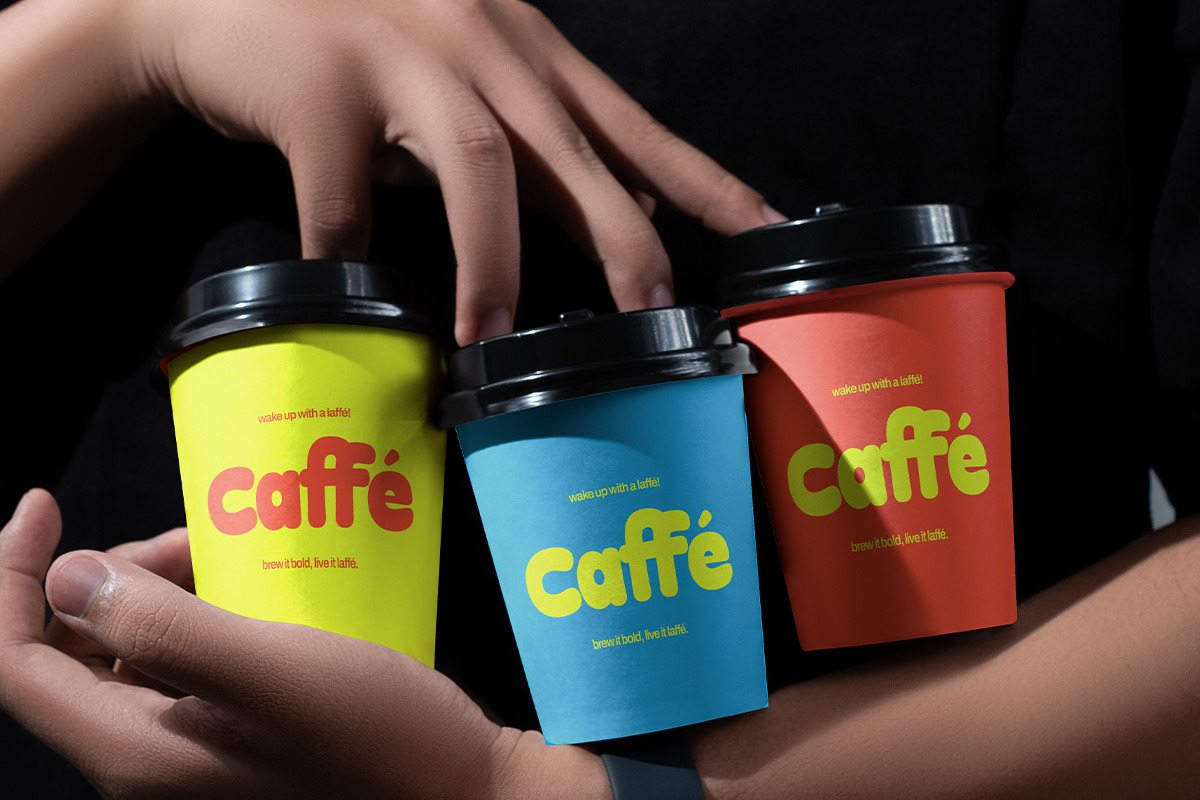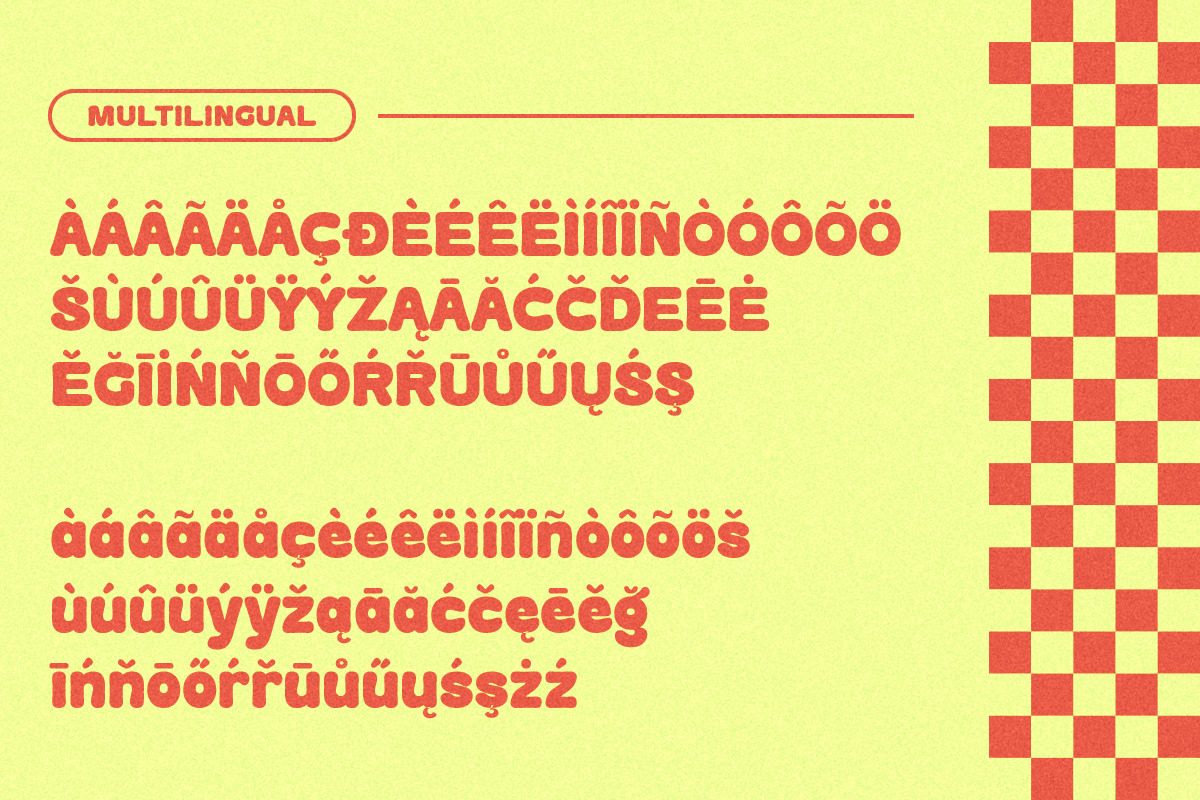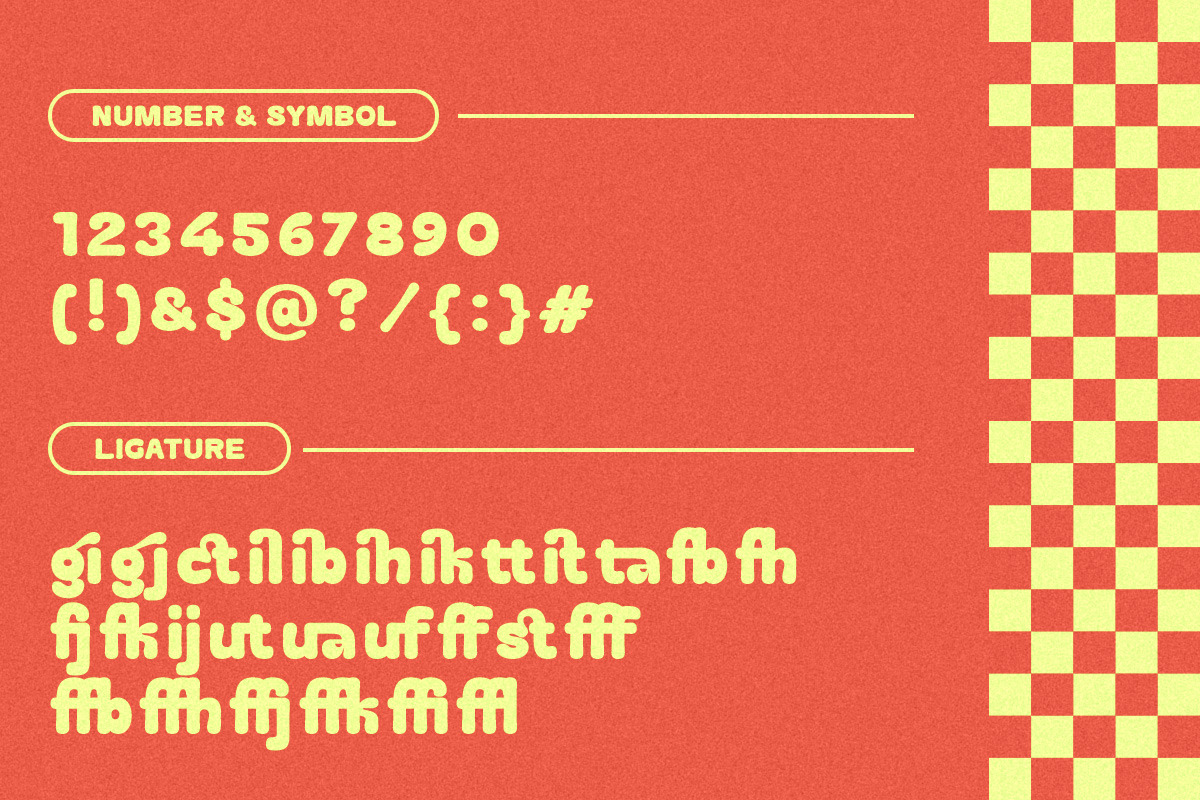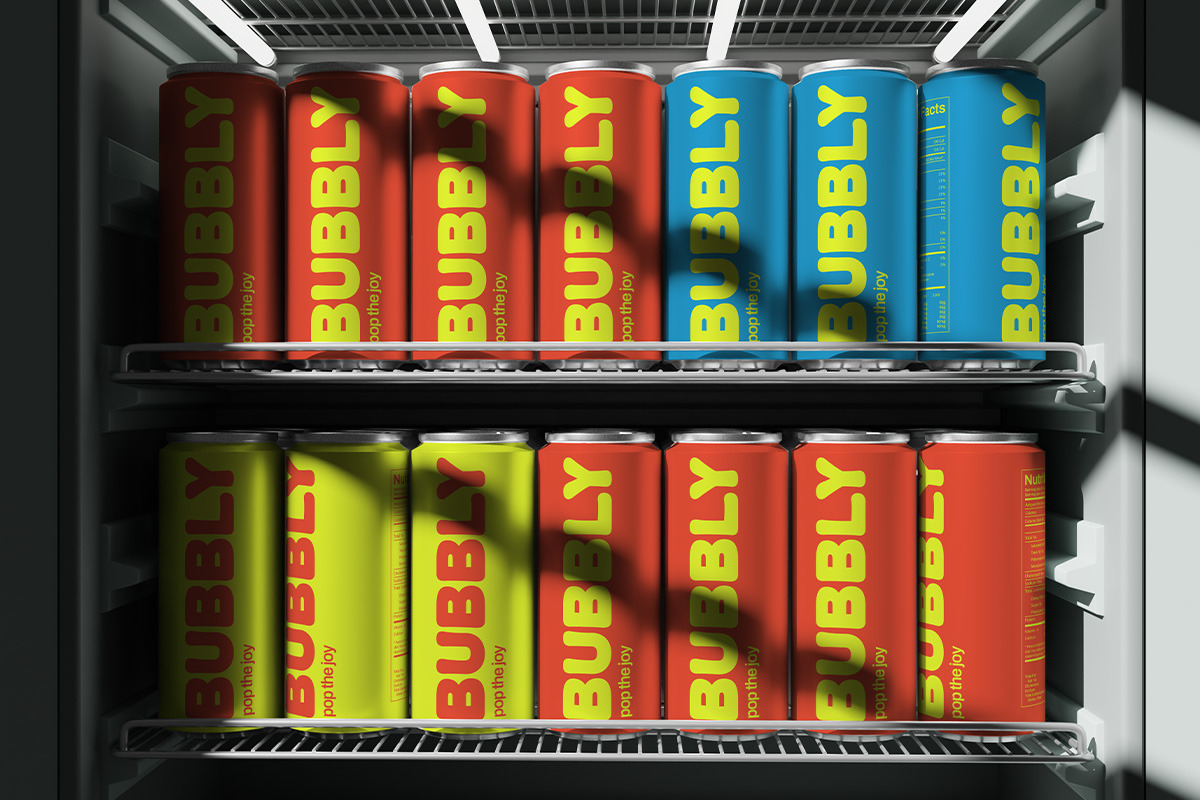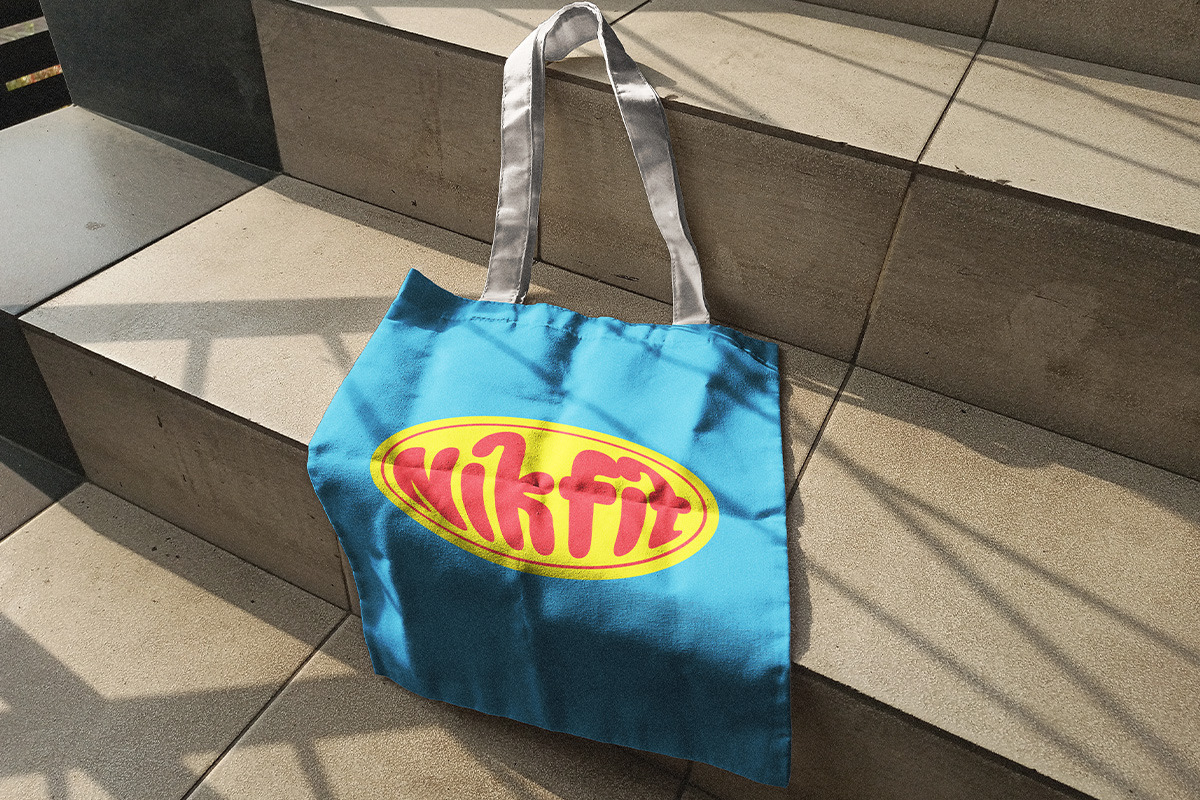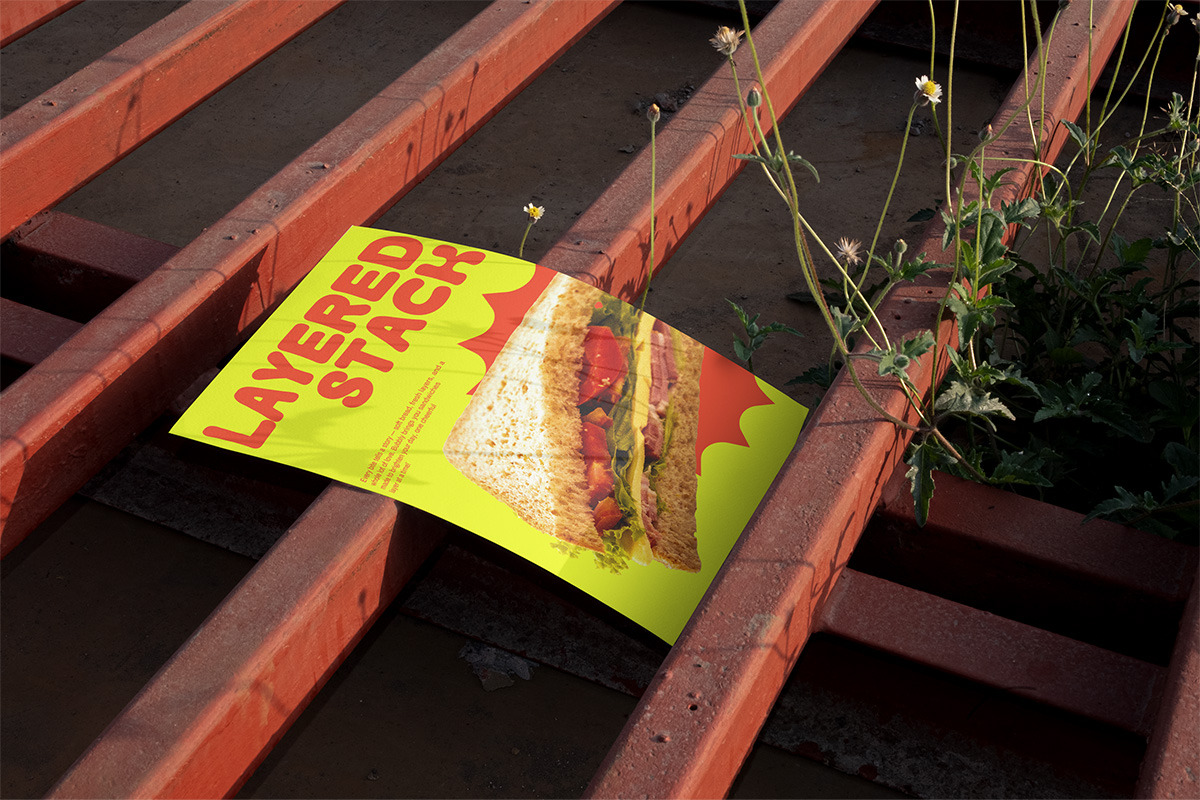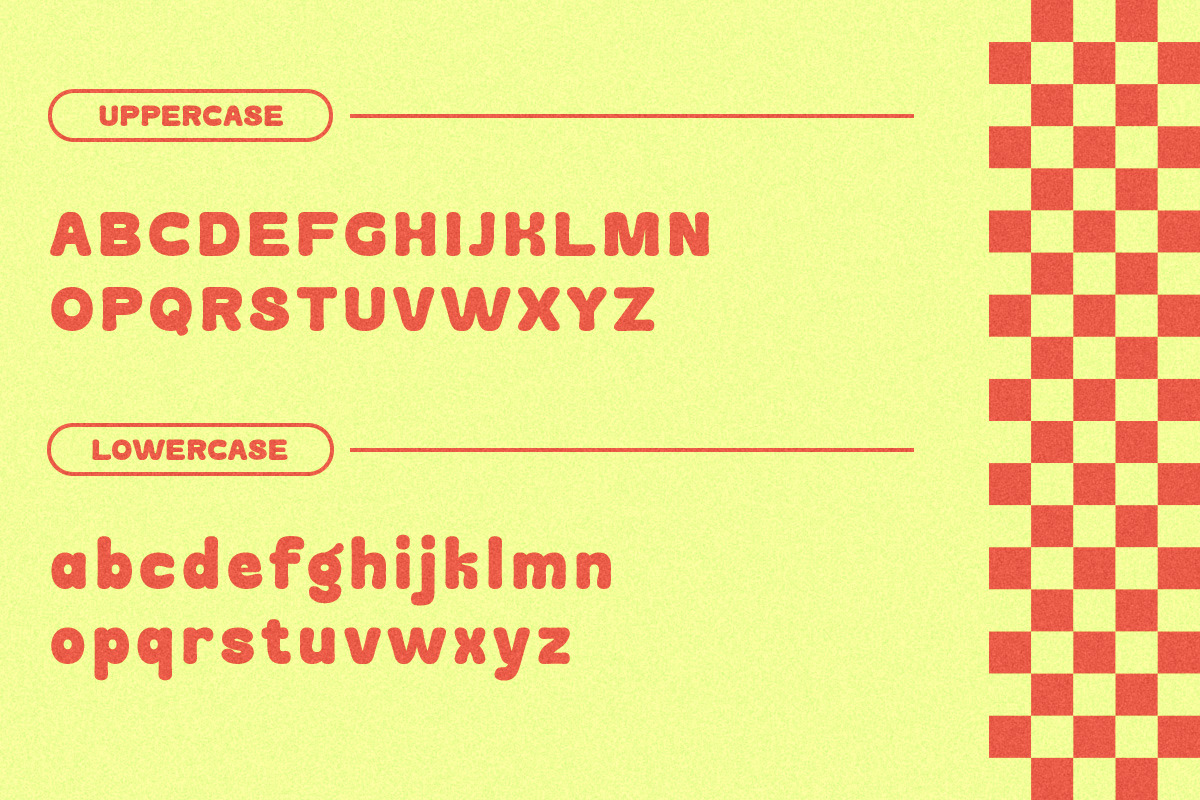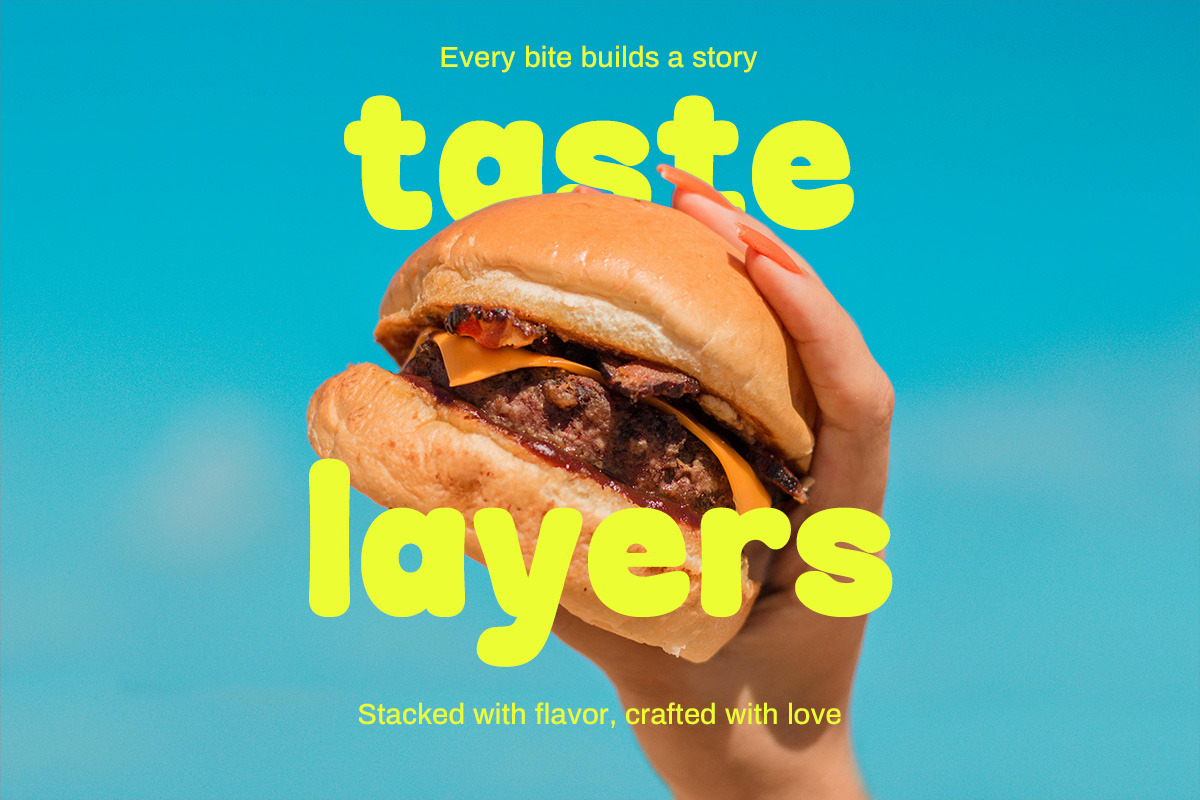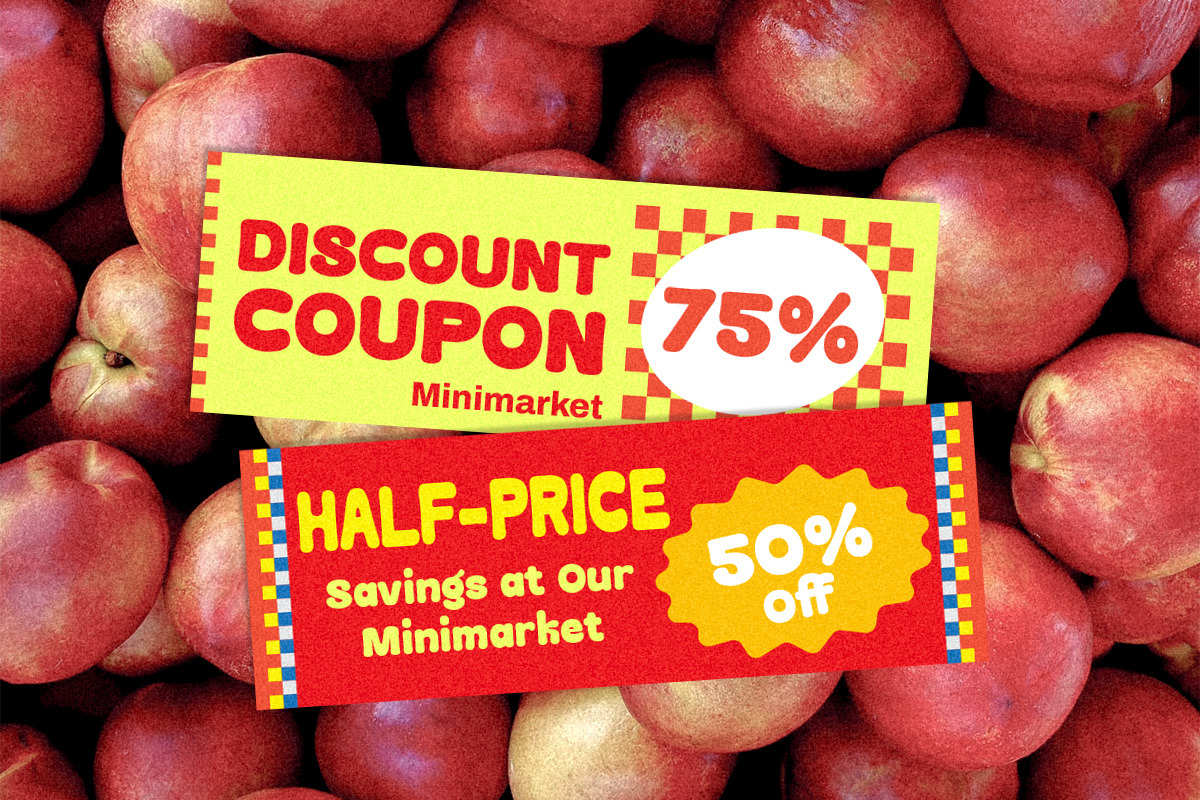
Holidough | Rounded
Say hello to Holidough, a plump and happy typeface that brings smiles wherever it goes. Its rounded edges and soft forms make every word feel cozy, friendly, and full of charm ideal for packaging, posters, or any design that craves joy.
Comes with alternatives and ligatures, helps to create stunning logos, quotes, posts, blog posts. branding projects, magazine imagery, wedding invitations, and much more.